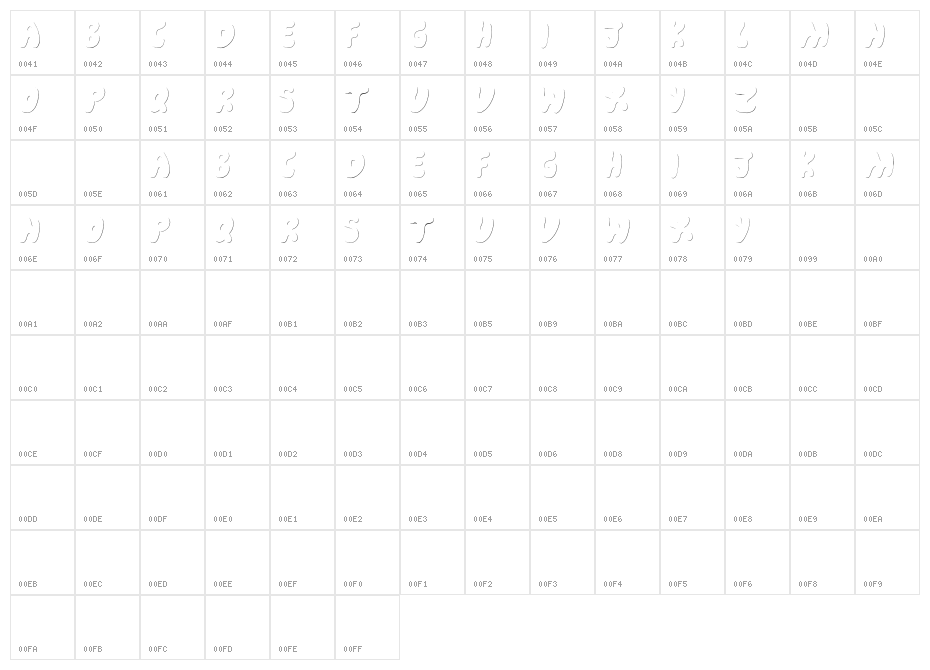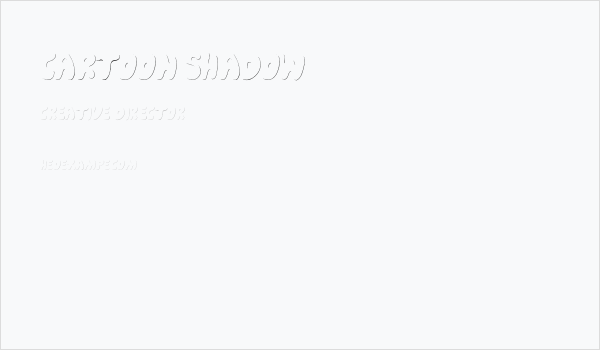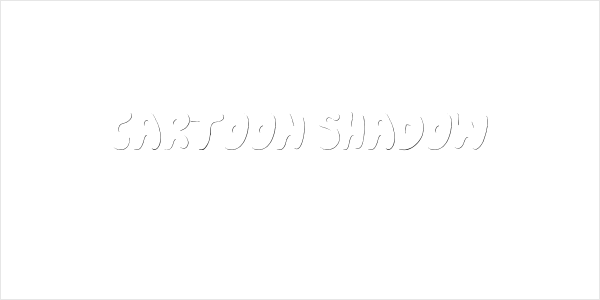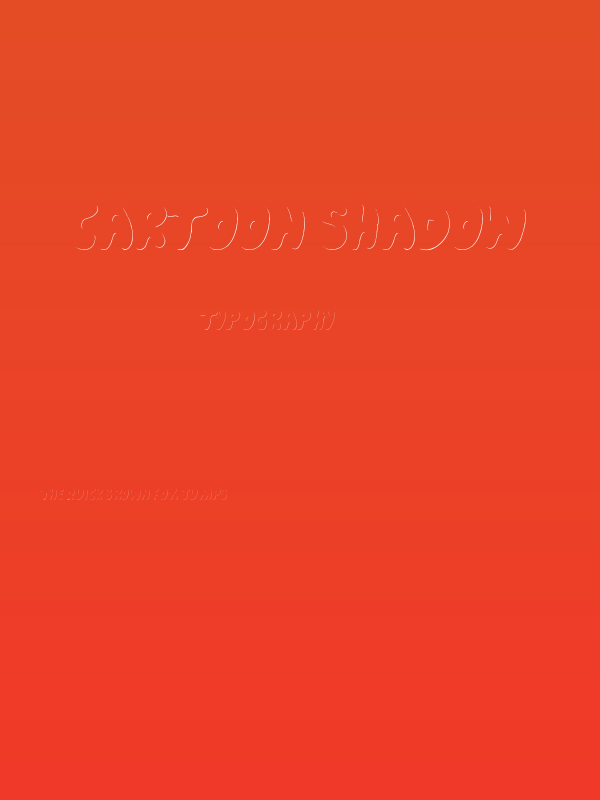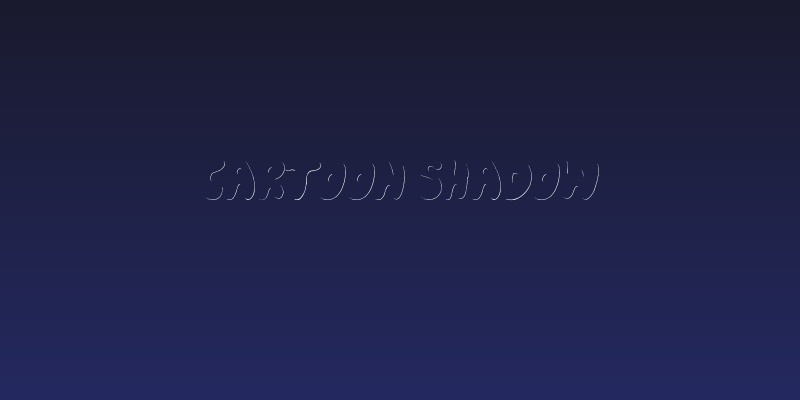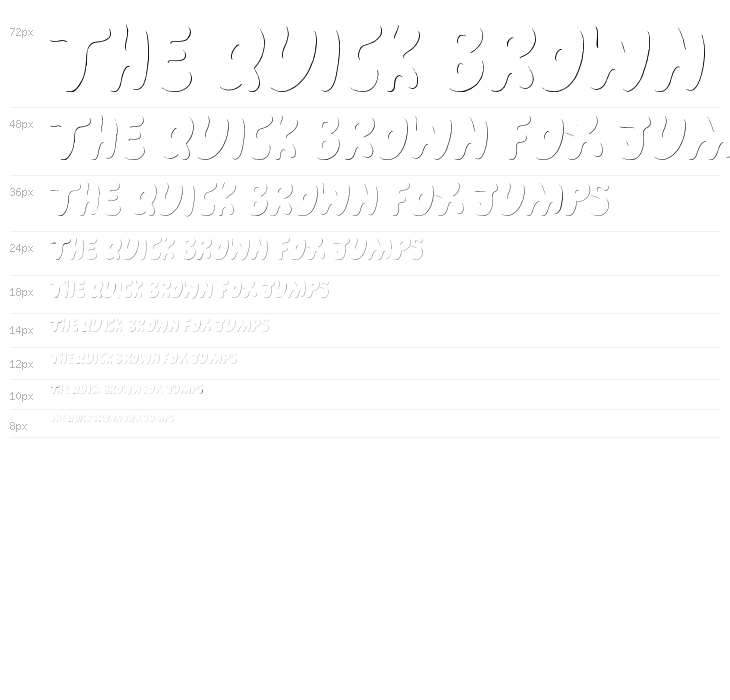
Cartoon Shadow Font
Cartoon Shadow Description
This playful and whimsical font features a cartoon-like style with shadow effects that give it a three-dimensional appearance. The characters are rounded and soft, with a fluid, almost hand-drawn quality that adds to its charm. The shadowing is subtle yet effective, creating a sense of depth without overpowering the letters. This font is perfect for projects that require a fun and lighthearted touch, such as children's books, comic strips, or playful branding. Its unique style makes it stand out, while still maintaining readability.
| Proposed Projects | Ideal for children's books, comic strips, playful branding, and fun posters. |